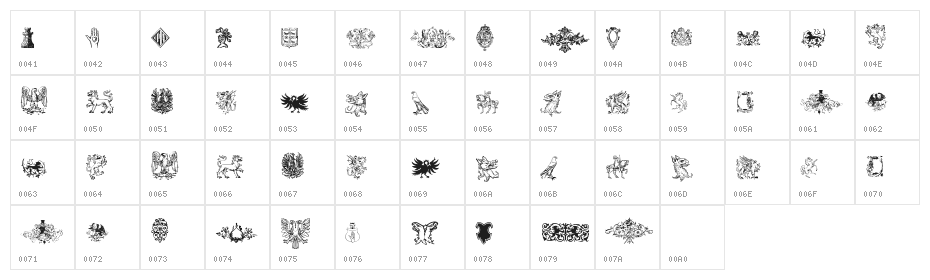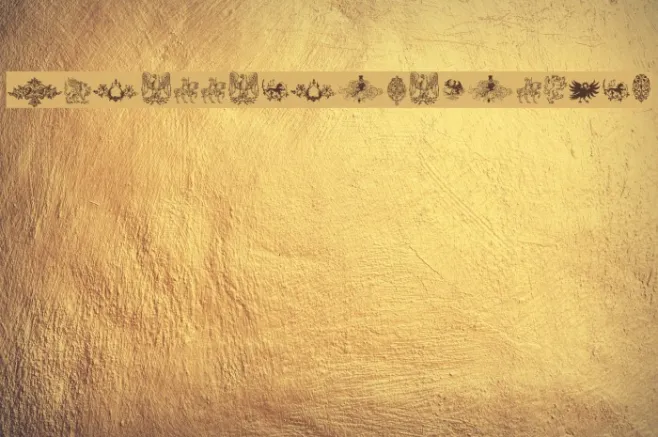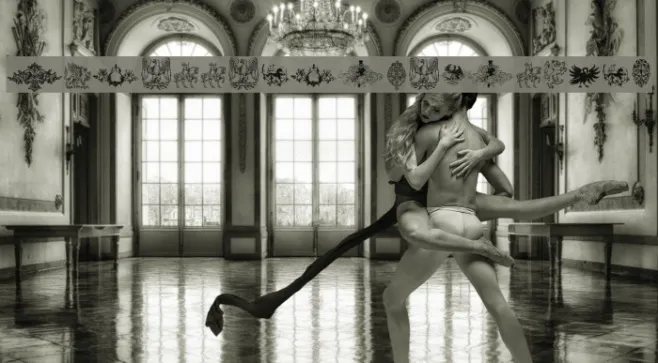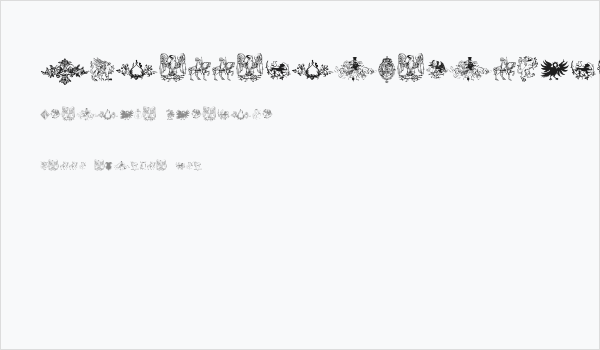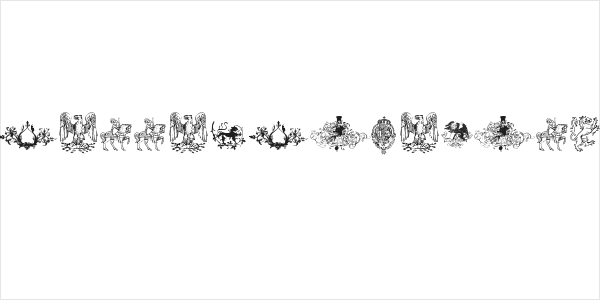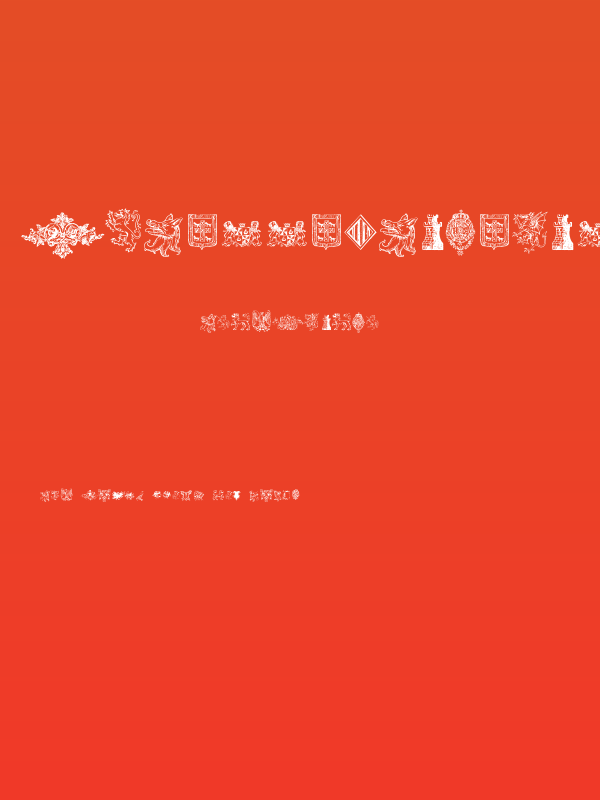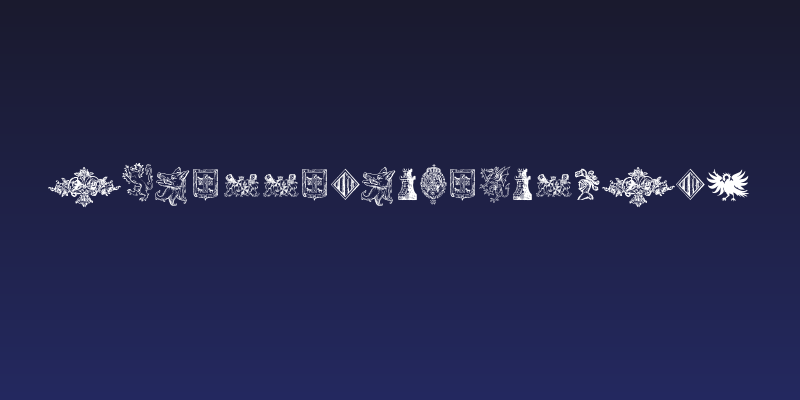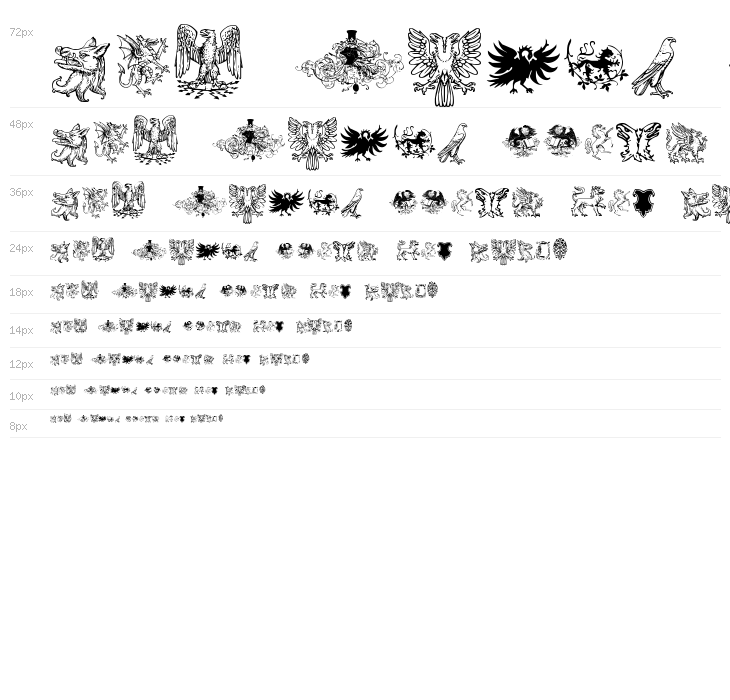
IntellectaHeraldics Font
IntellectaHeraldics Description
A highly decorative and intricate collection of heraldic symbols, crests, animals, and ornamental flourishes, rendered in a detailed black-and-white style reminiscent of vintage coats of arms and historical insignias.
| Overall Style | Vintage, Decorative, Heraldic |
| Use Case | Logos, Decorative elements, Themed event materials, Certificates |
| Proposed Projects | Book covers, certificates, branding for luxury goods, historical or fantasy-themed designs, invitations, packaging, and decorative borders. |